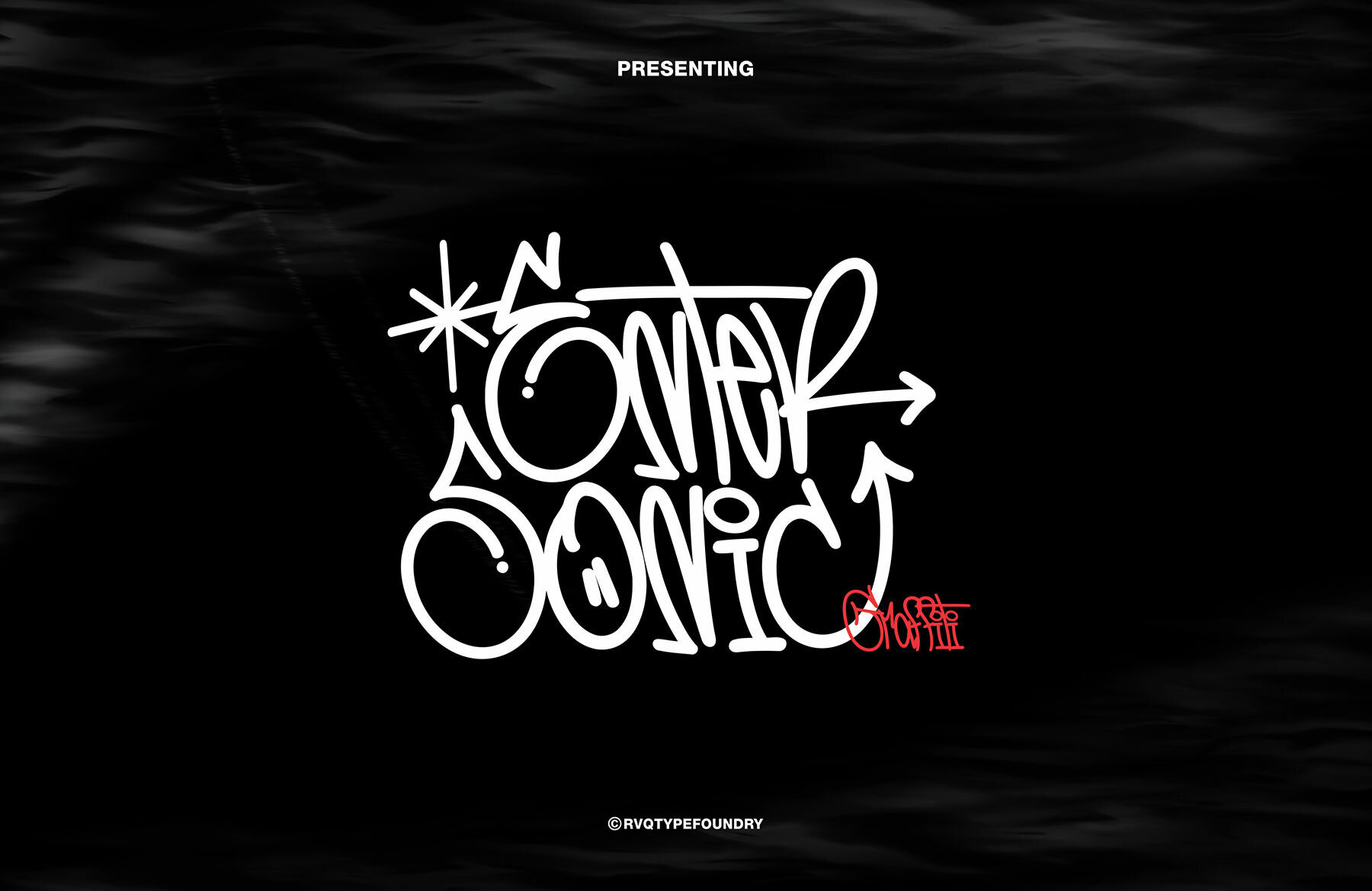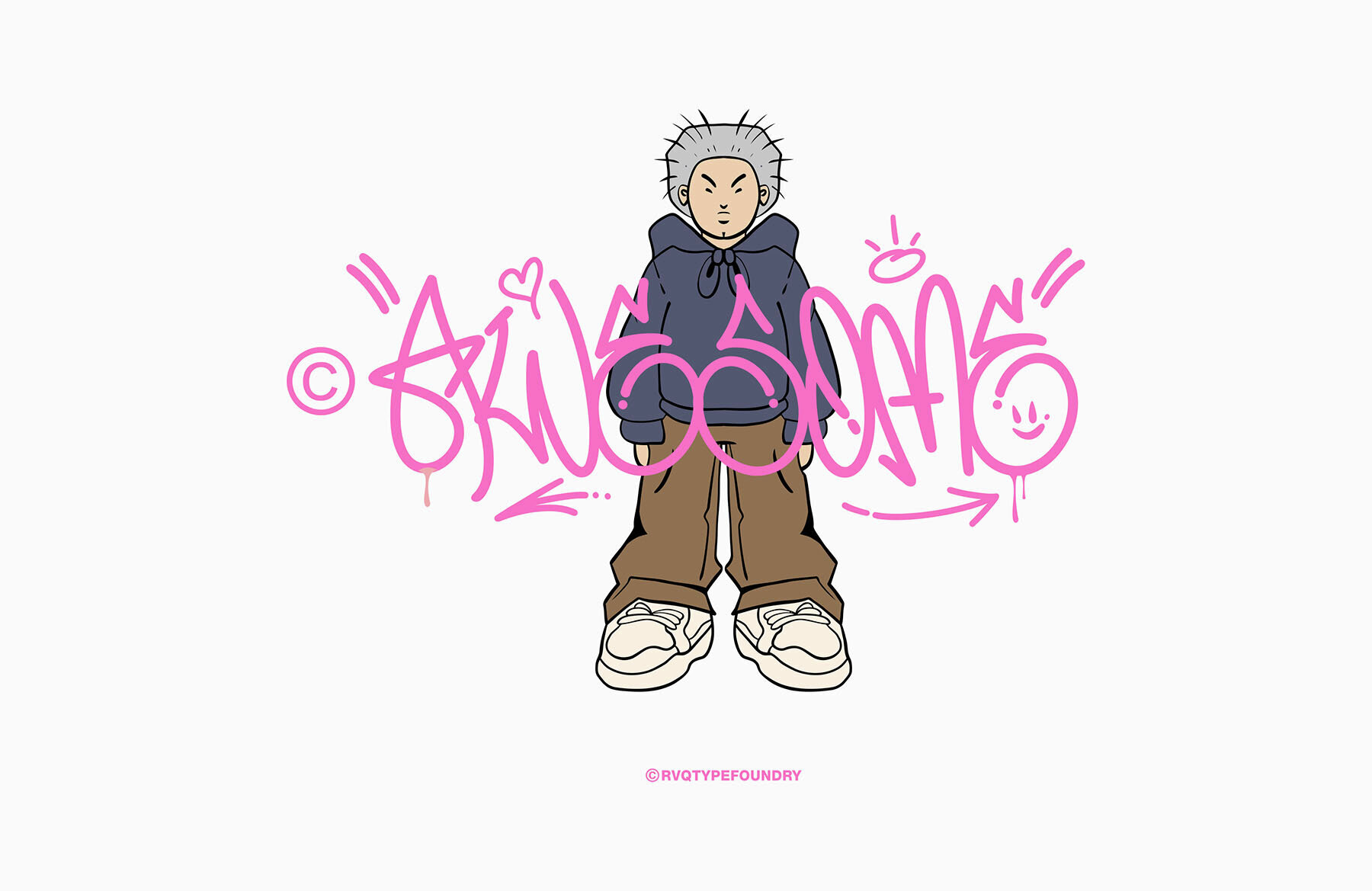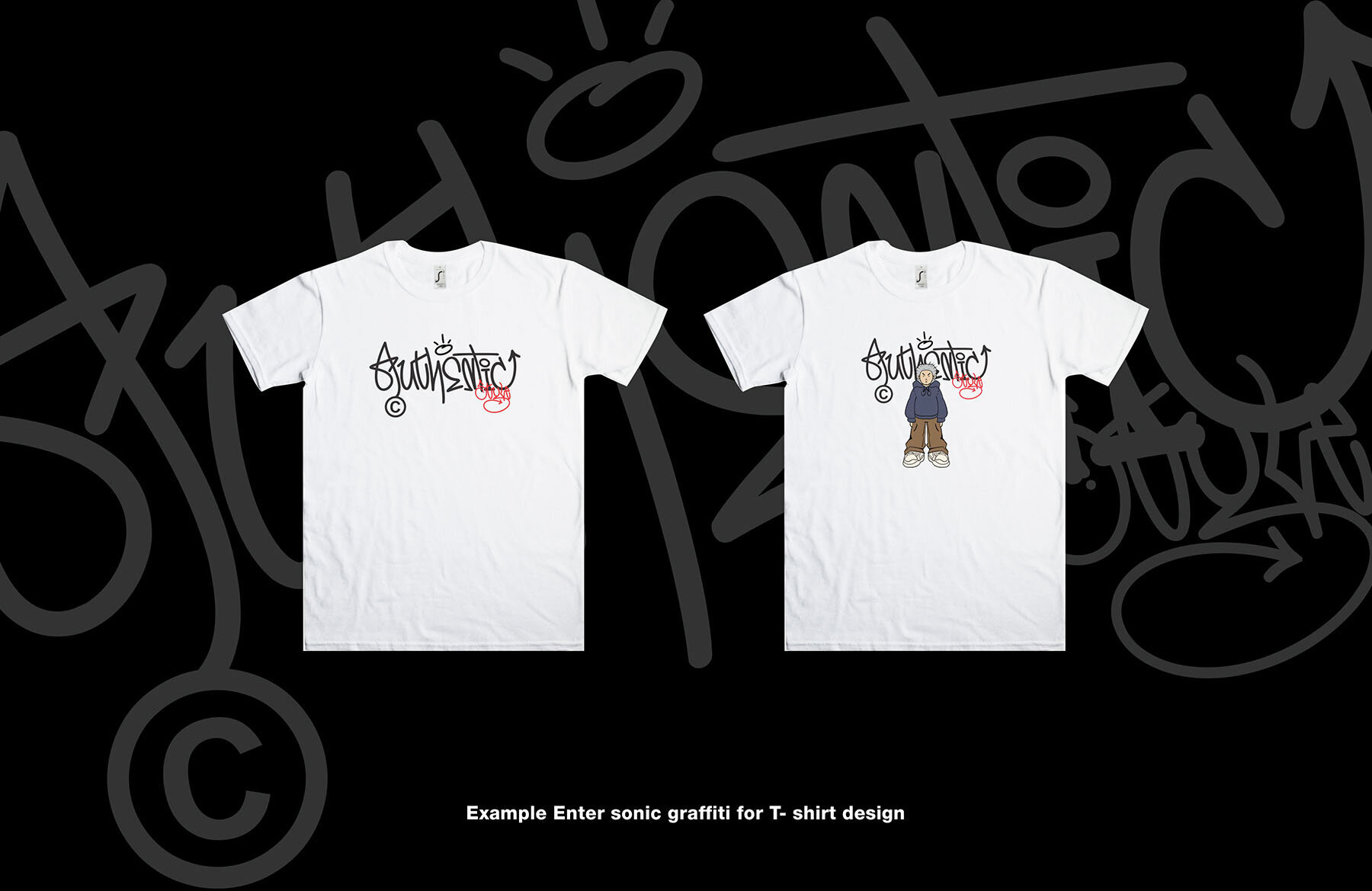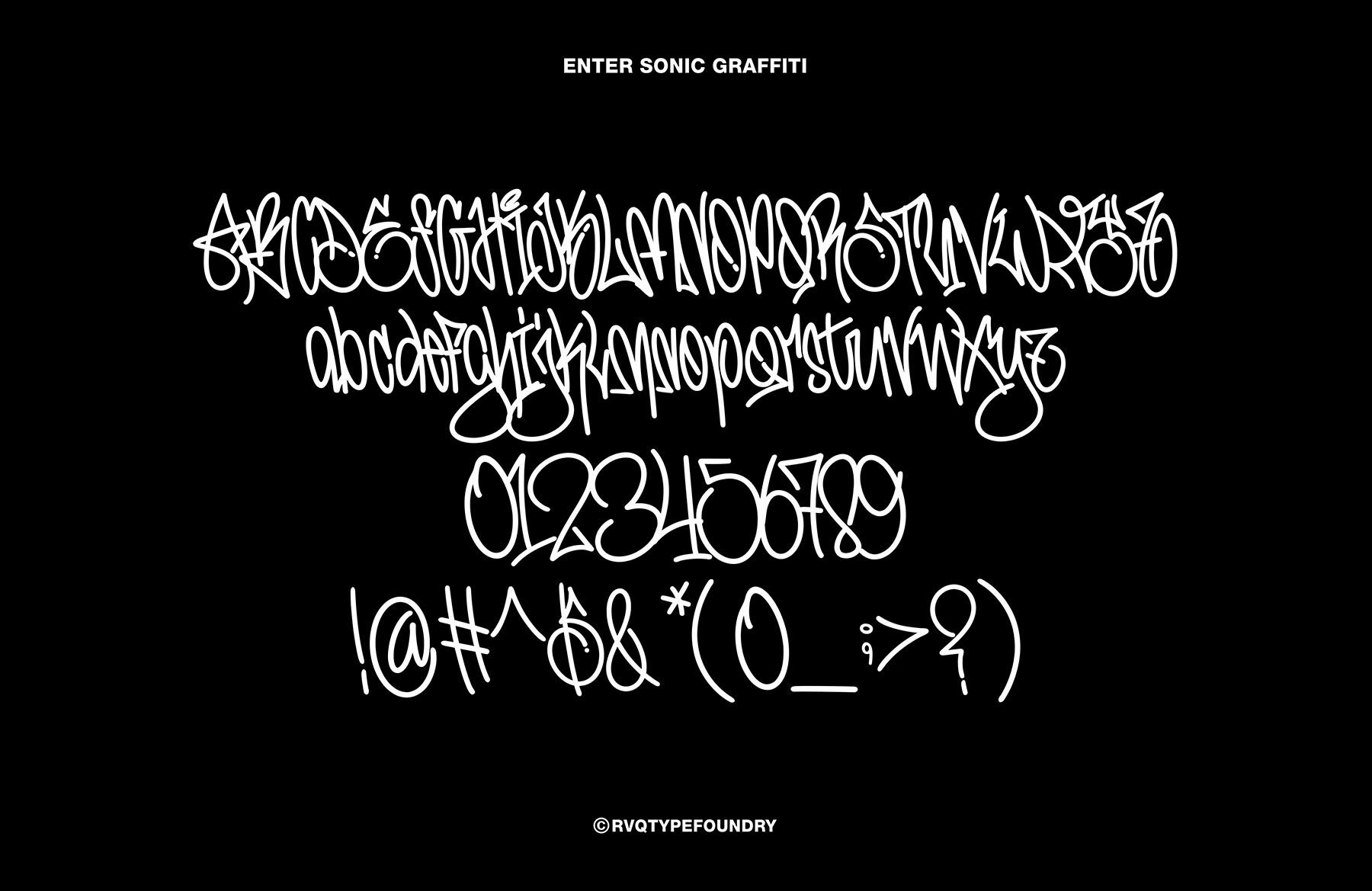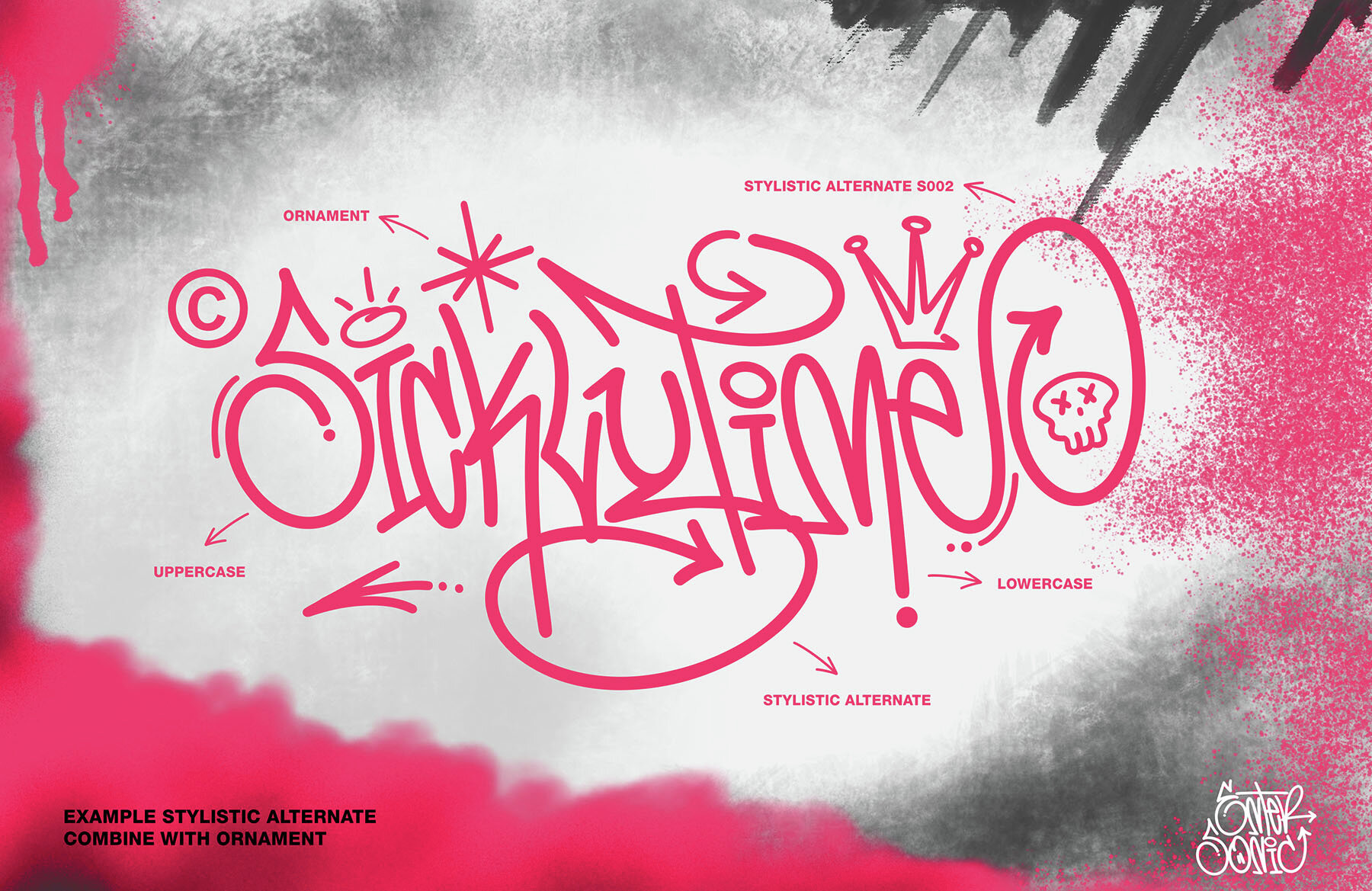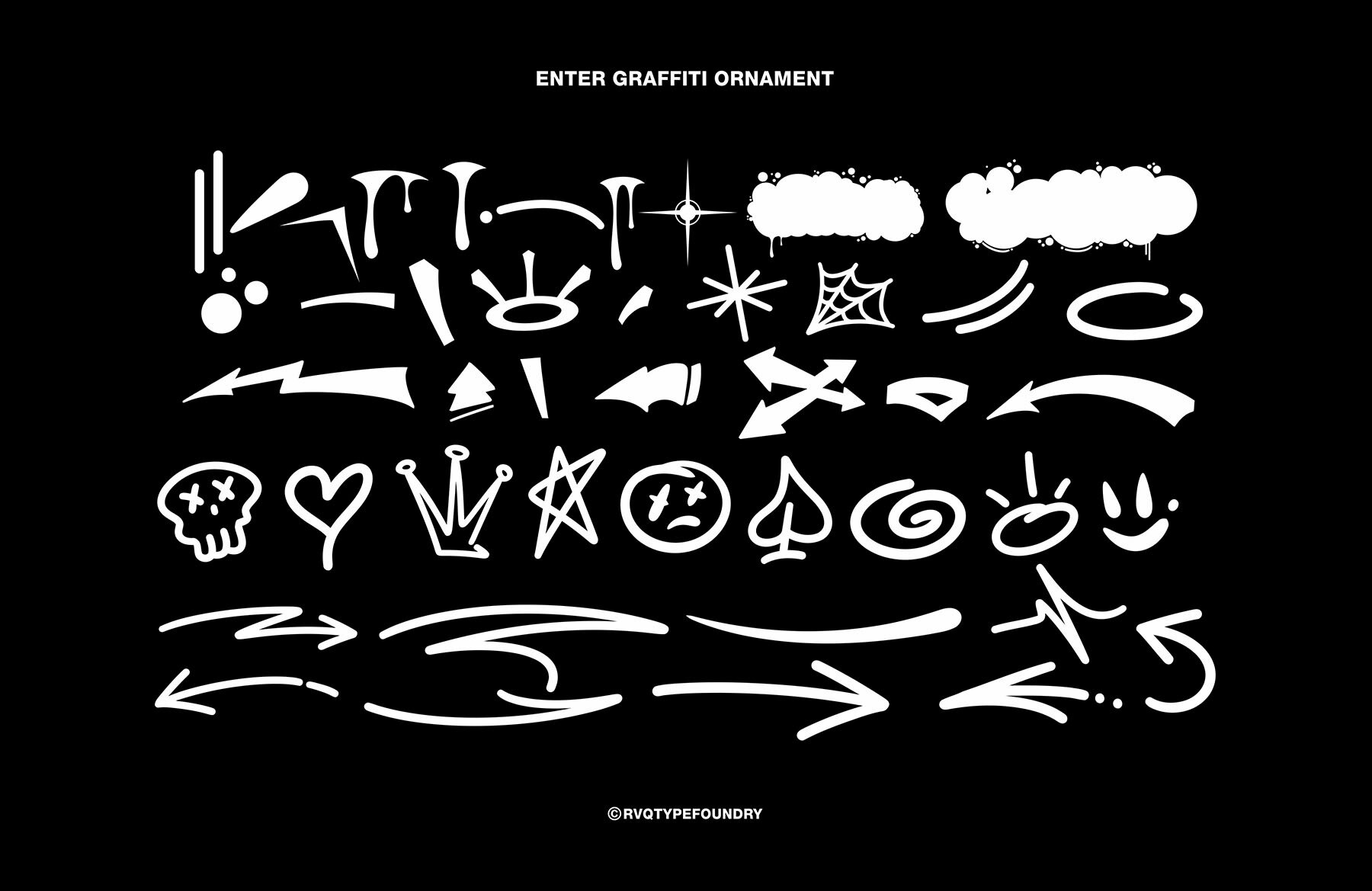
Enter Sonic Graffiti Font
Sonic Graffiti from Rvq Typefoundry presents an innovative character set with an elegant feel. This font is designed to add a distinctive edge to creative projects, enhancing visual impact through the combination of its unique uppercase, lowercase, and alternative glyphs.Sonic Graffiti: A Dynamic Typeface